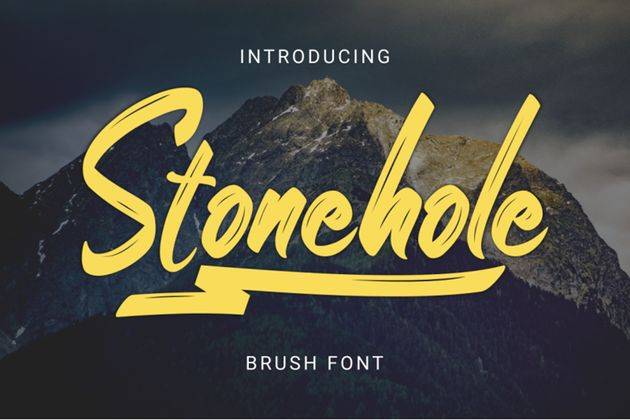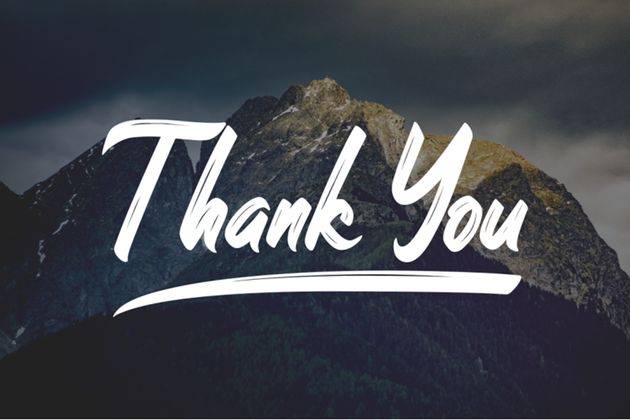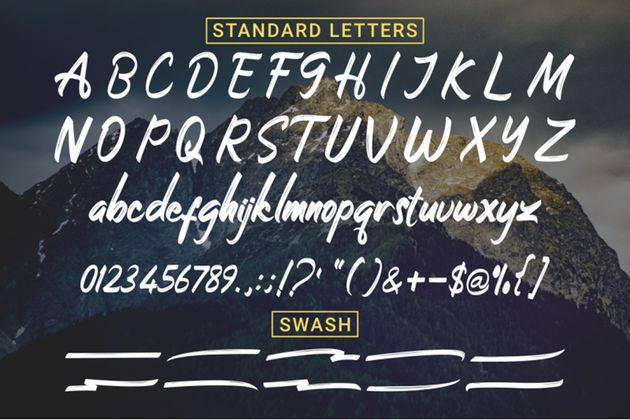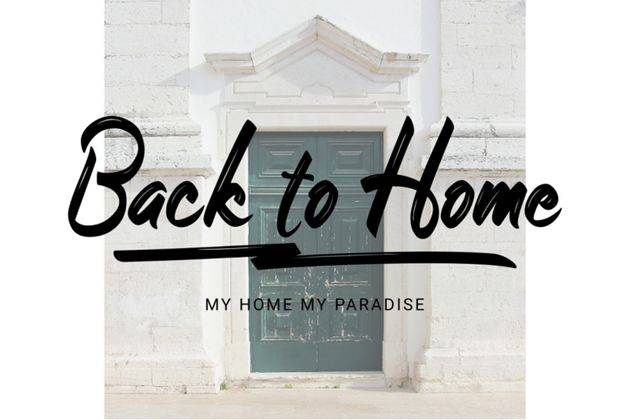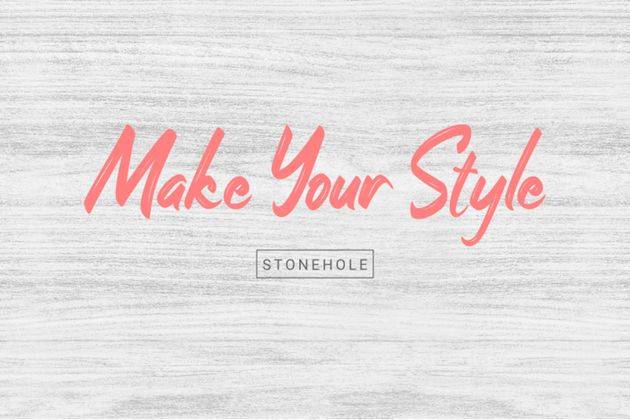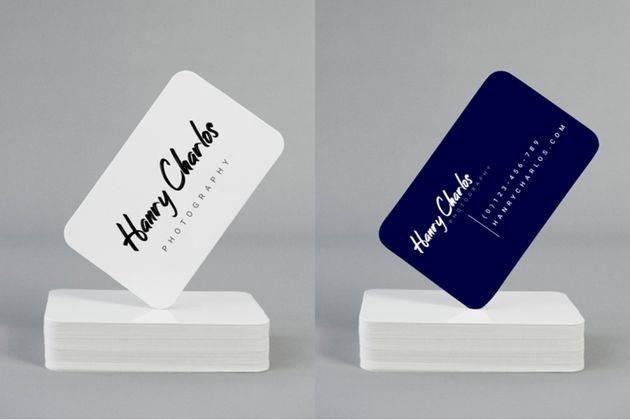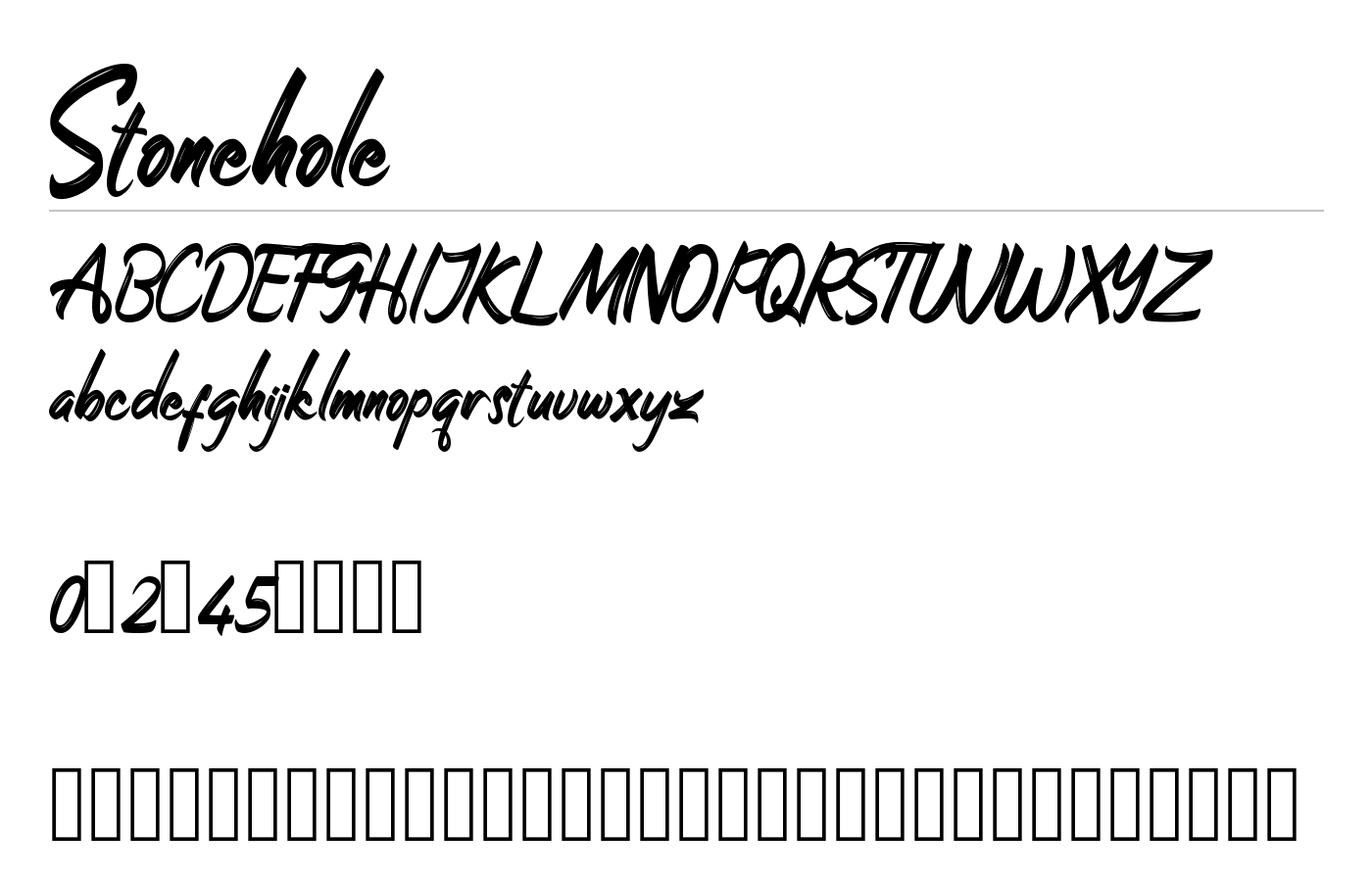
Stonehole Script Demo is a bold, lively script font with a hand-painted feel, featuring energetic, brush-like strokes and a slightly condensed width. Its dynamic uppercase and lowercase letters showcase a mix of curvy and sharp edges, giving it a playful yet confident personality perfect for eye-catching headlines, branding, and creative projects. This font works best where a personal, artistic, and casual touch is desired, adding flair and character without sacrificing readability.
Stonehole Script Demo
About Stonehole Script Demo
| Font family | Stonehole Script Demo |